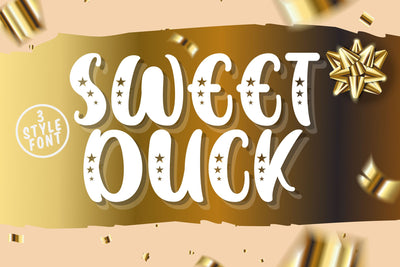
Sweet Duck - A Cute Sans Font
Introducing Sweet Duck. Sweet Duck is an amazing handwritten font . Made with naturally handwritten. The font will make your design more beautiful and powerful. This font is suitable for any design like branding, quotes and etc. I hope you enjoy it !! Thanks for visiting and downloading my font!what’s inside :